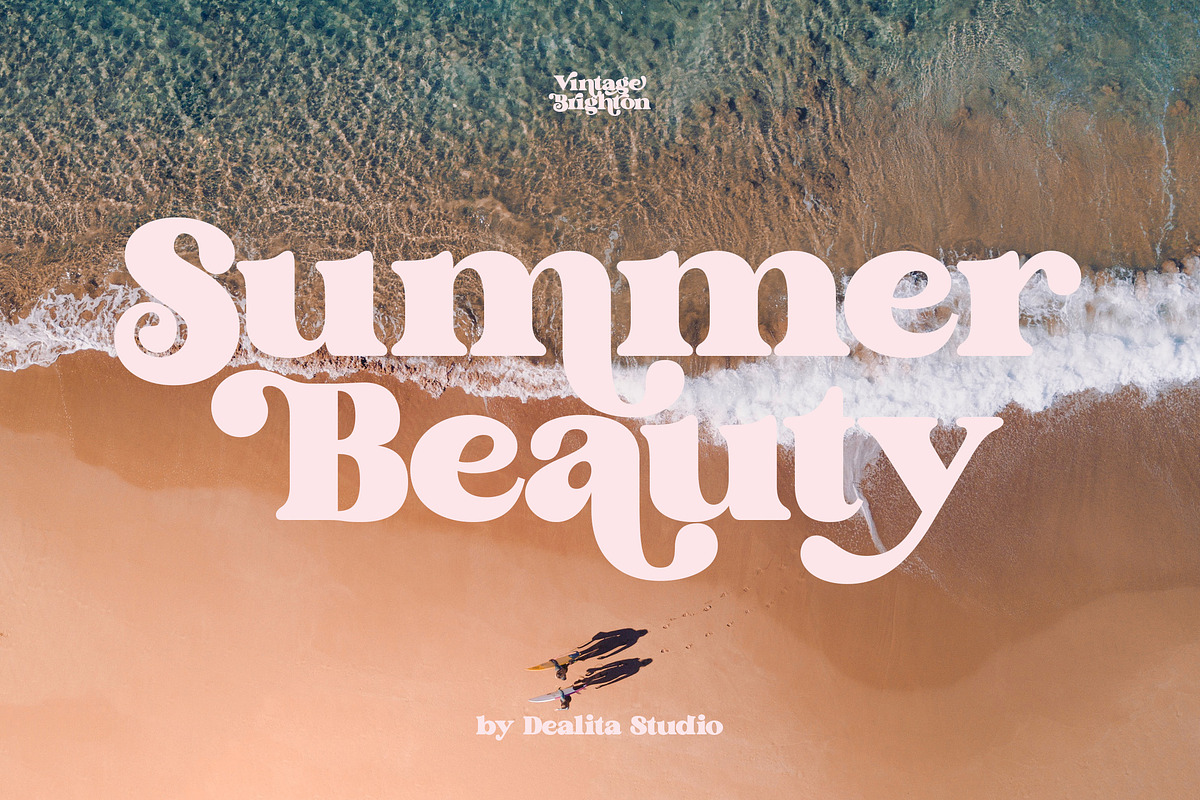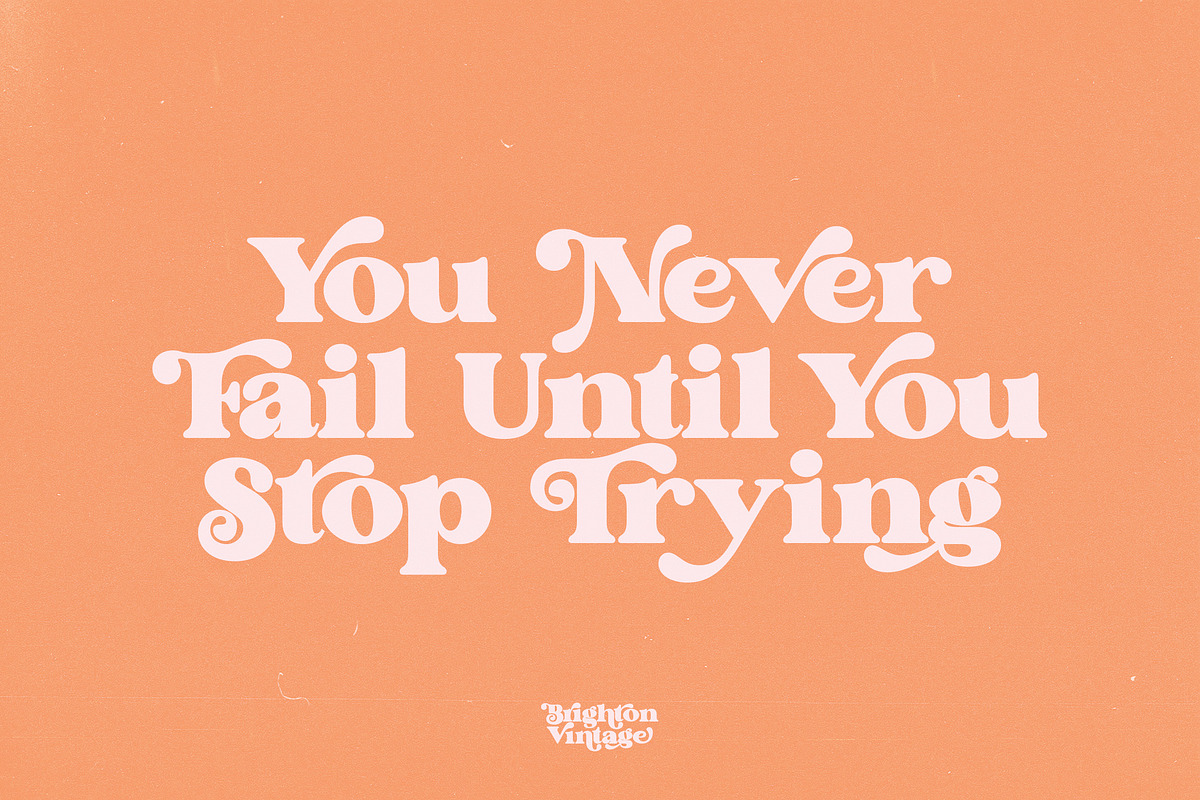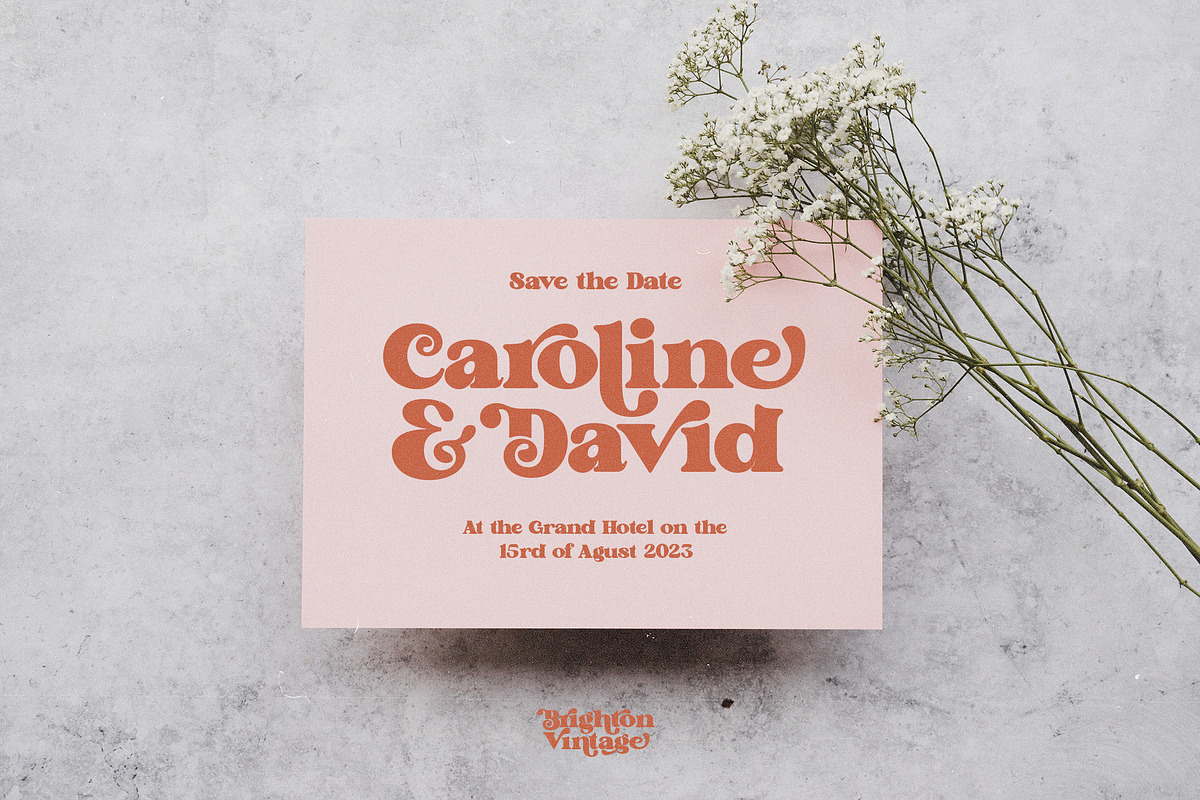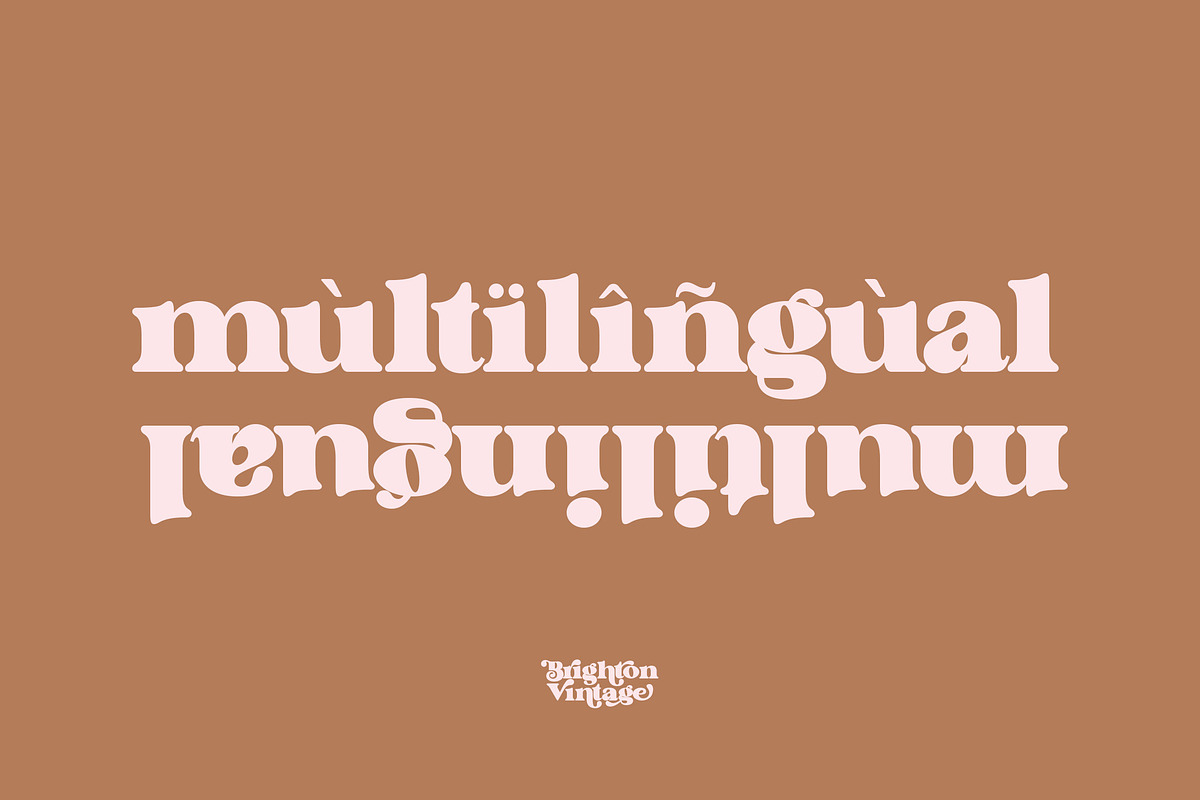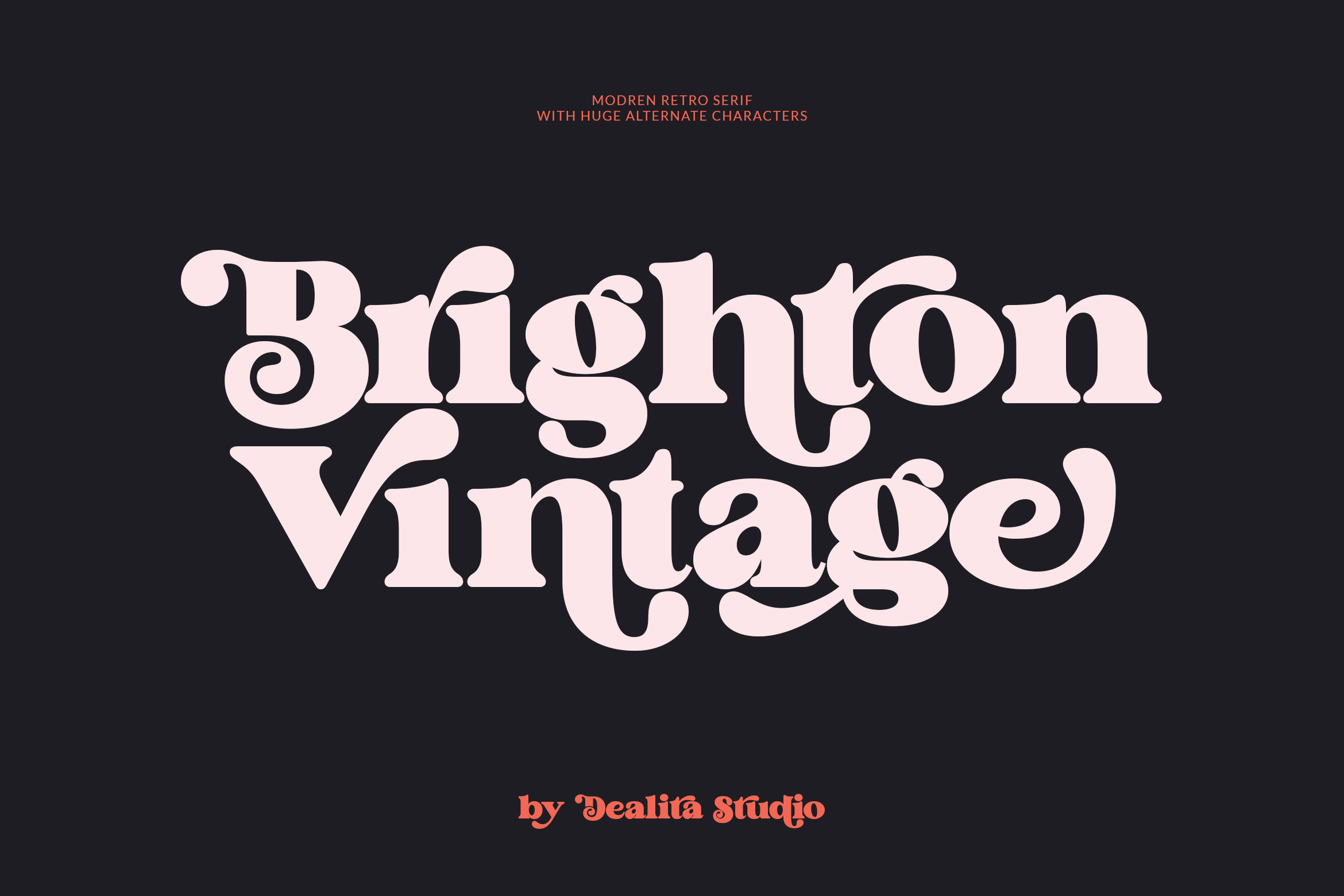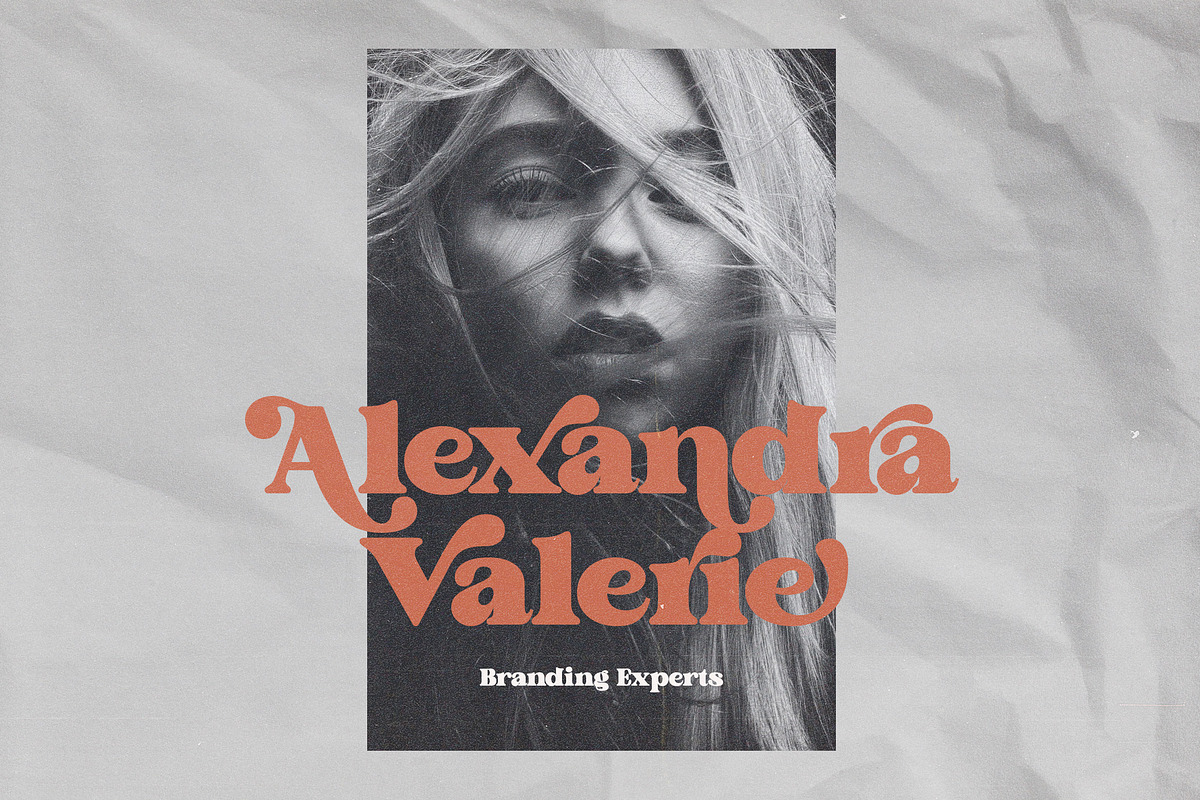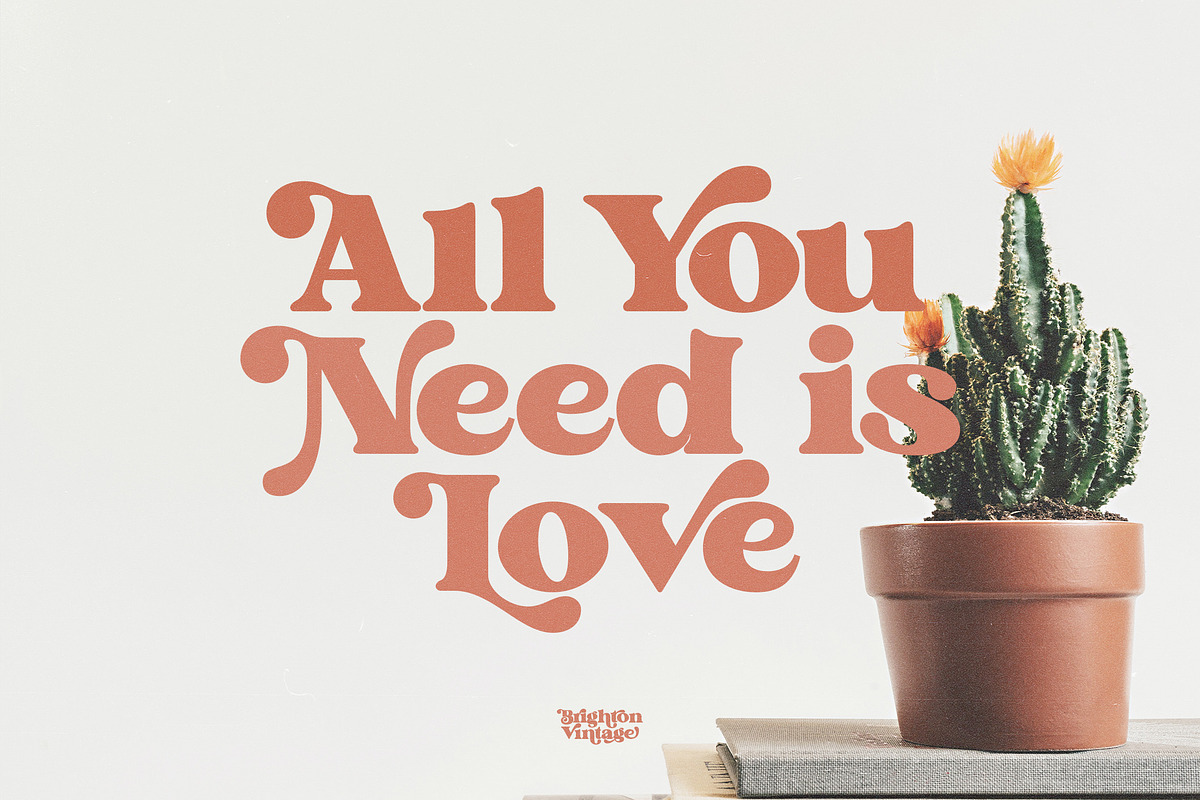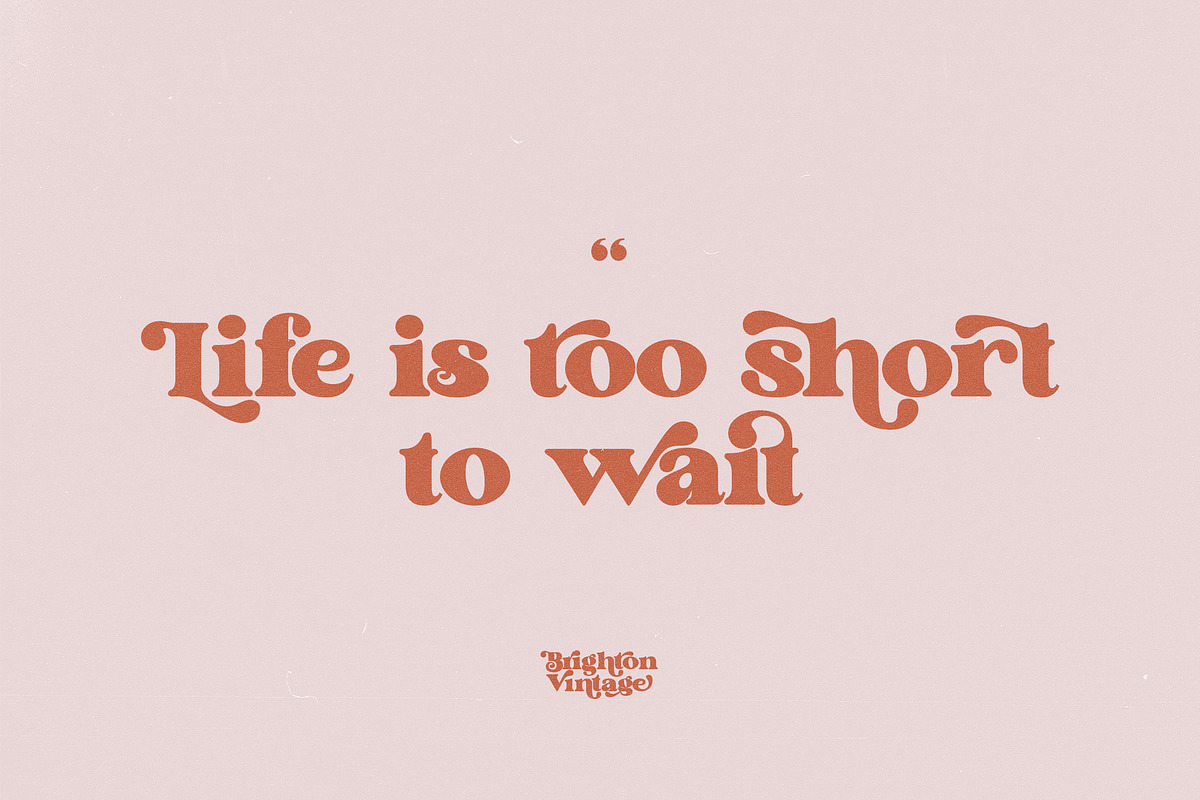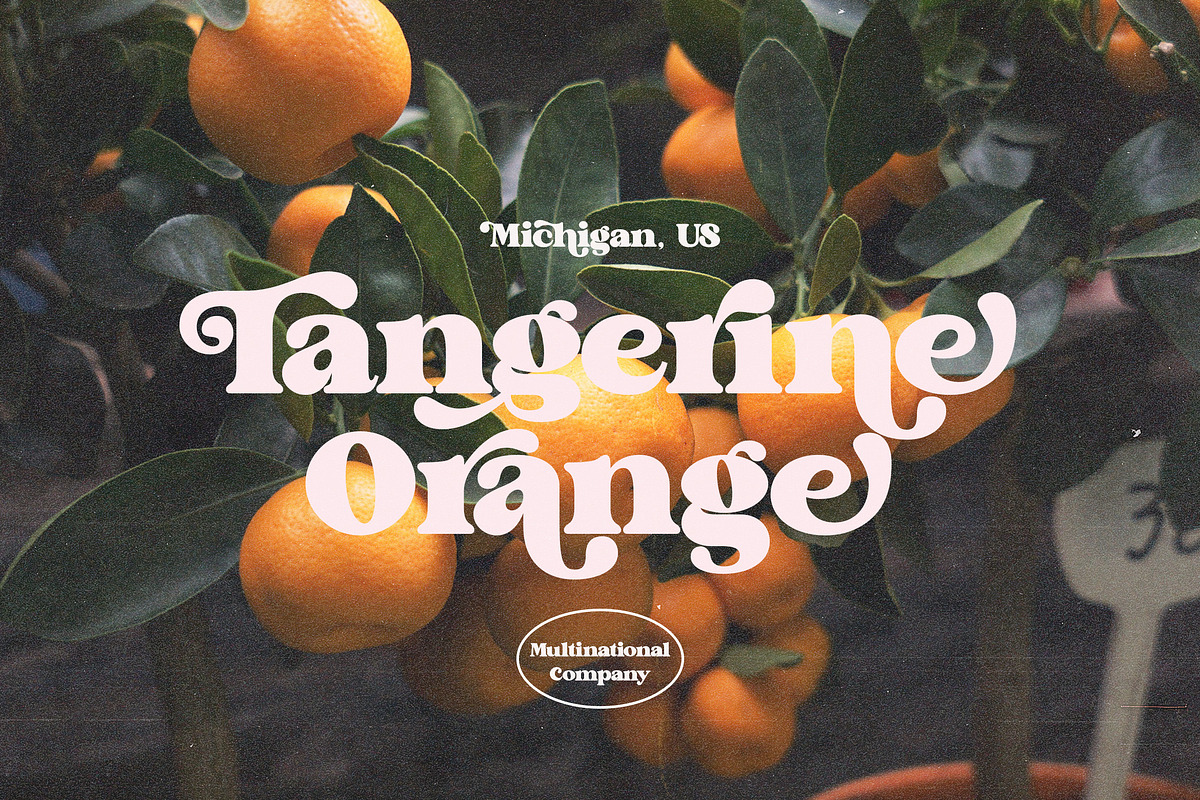
Brighton Vintage - Modern Serif Font
Brighton Vintage is a stylish font that is both retro and bold font. It's thick curves give a 70s groovy vibe with the serifs bringing it slightly back to traditional. This font perfectly made to be applied especially in logo, and the other various formal forms such as invitations, labels, logos, magazines, books, greeting / wedding cards, packaging, fashion, make up, stationery, novels, labels or any type of advertising purpose.
- Lowercase uppercase